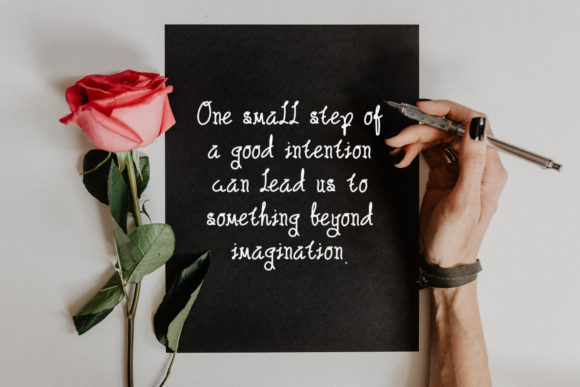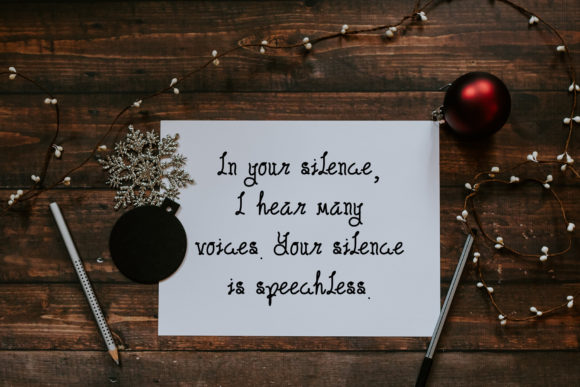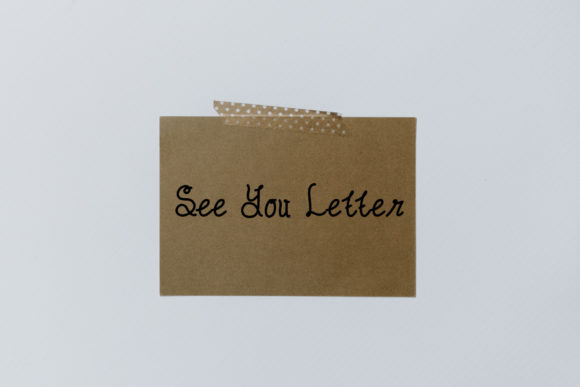
About Hallimun Font
Hallimun is a captivating script font that effortlessly combines whimsy, sophistication, and elegance. With its playful yet refined style, Hallimun adds a touch of charm and uniqueness to any design project. Whether you’re working on branding materials, invitations, packaging, or any other creative endeavor, Hallimun is the perfect choice.
The whimsical nature of Hallimun is evident in its curvaceous and flowing letterforms. Each character is carefully crafted to create a sense of movement and liveliness, giving your text a dynamic and eye-catching appearance. The font’s stylish alternates and ligatures further enhance its versatility, allowing you to create custom and captivating typography.
One of the standout features of Hallimun is its ability to adapt to various design projects. Whether you’re aiming for a fun and playful look or a more sophisticated and elegant aesthetic, Hallimun can effortlessly convey the desired mood and tone. Its versatility makes it suitable for a wide range of applications, including logos, branding materials, stationery, social media graphics, and more.
The stylish alternates and ligatures available in Hallimun provide you with even more creative possibilities. You can easily access these additional glyphs through character map software or design applications that support OpenType features. By incorporating these unique elements into your designs, you can add an extra layer of visual interest and make your typography truly stand out.
Whether your project calls for a touch of whimsy, elegance, or both, Hallimun is the perfect font to bring your ideas to life. Its chic and sophisticated style, combined with its playful and whimsical nature, makes it a versatile choice for any design project.
In summary, Hallimun is a whimsical and chic script font that exudes sophistication and elegance. Its stylish alternates and ligatures offer endless possibilities for customization, allowing you to create truly unique and captivating typography. Embrace the charm of Hallimun and let it add a touch of whimsy and refinement to your designs.